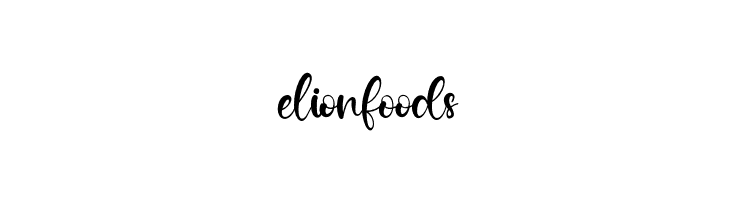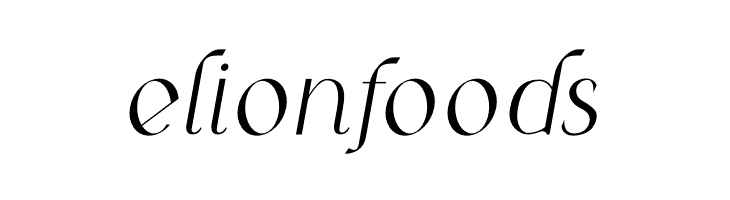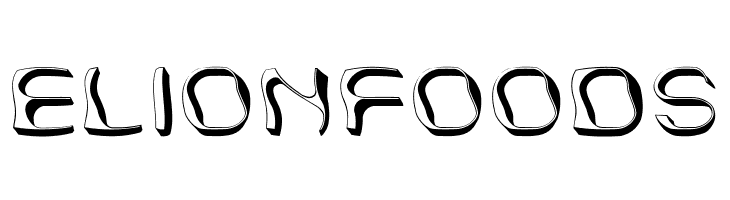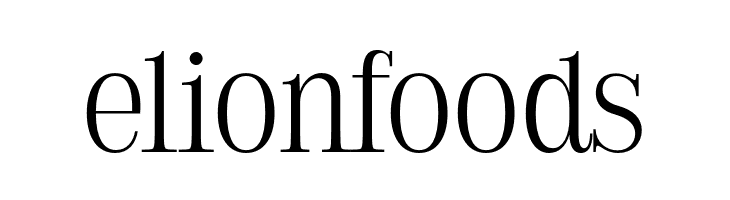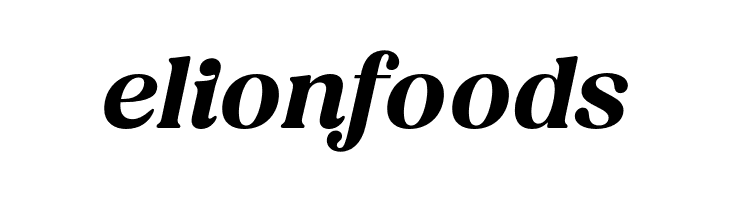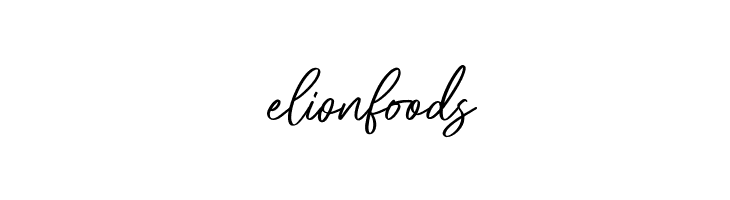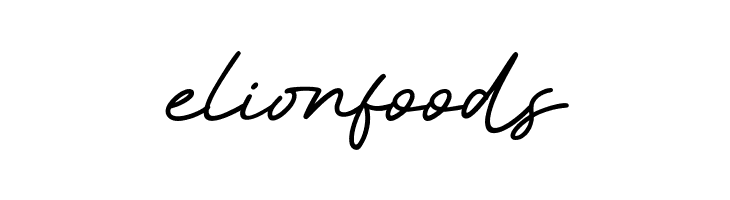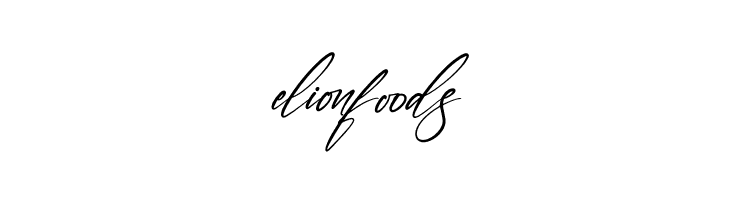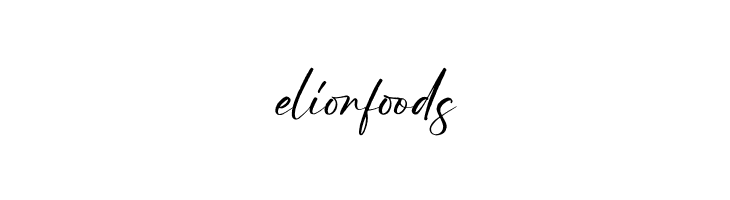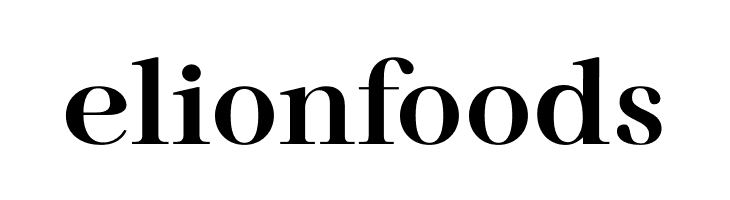
• Inria Sans Bold
A bold, modern sans-serif font with clean lines and geometric shapes.
• HadleighBella
A playful and elegant script font with flowing, cursive letters.
• IBM Plex Mono Medium Italic
A modern, monospaced italic font with medium weight and clean lines.
• IBM Plex Serif SemiBold Italic
A semi-bold italic serif font with a modern yet classic style.
• Biryani Light
A modern, light sans-serif font with clean lines and excellent readability.
• Source Sans Pro Semibold Italic
A modern sans-serif font with an italic slant and medium weight.
• Crazy Perspective
A bold, slanted font with a modern and energetic style.
• Atlantic Cruise(RUS BY LYAJKA)
A modern, geometric font with clean lines and a sophisticated style.
• Lichfield FREE COMERCIAL USED
A refined, high-contrast font with elegant, slightly condensed characters.
• Ashgabat Demo
A modern, geometric font with a clean and professional design.
• Geoplace Bold
( An expanded proportion sans serif typeface family, imbued with futuristic urban style and technological inspiration, reflecting my passion for design and geometric precision to achieve unique aesthetics and exceptional legibility. ======================= )
A bold, modern font with geometric structure and clean lines.
• Qoency Demo
A modern, elegant font with high contrast and subtle serifs, perfect for luxury branding.
• Allegation Demo SemiboldItalic
A semi-bold italic serif font with a modern and elegant style.
• Super Chips
A playful, bold font with rounded edges and a modern, friendly style.
• Disturbed
A bold, distressed font with a grunge aesthetic and rugged texture.
• Glistening Regular
A glossy, modern font with a reflective, three-dimensional appearance.
• Golden State Serif PERSONAL Thin
A thin, elegant serif font with high contrast and classic styling.
• BT Amibus Trial SemiBold Italic
A semi-bold, italic serif font with elegant and refined characteristics.
• Neue Stance Medium
A modern, geometric font with clean lines and rounded edges, offering a sleek and professional appearance.